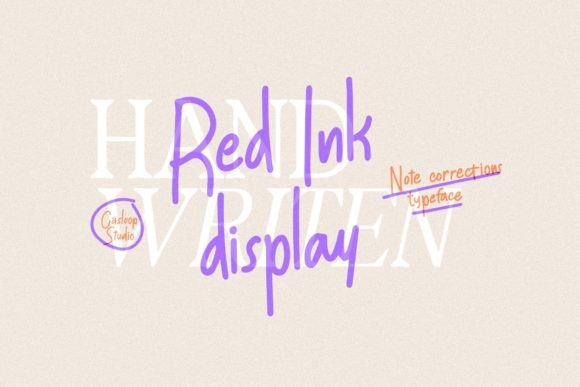
In the vast world of typography, Red-Ink font stands as a playful and captivating creation, mirroring the essence of spontaneous handwritten notes crafted in the halls of learning. Its casual allure beckons you to explore its boundless potential, whether you seek to ignite creativity in your craft projects, unleash the power of words in digital designs, add a touch of charm to your presentation, or fashion captivating greetings.
Red-Ink font effortlessly unlocks the door to endless possibilities, inviting you to experiment and unleash your imagination. Its playful strokes and the subtle variations that mimic the nuances of handwritten ink evoke a sense of nostalgia and evoke memories of school days.
With Red-Ink font as your trusted companion, transform ordinary into extraordinary. Witness the magic as your craft projects come alive with its playful demeanor. Let your digital designs speak volumes with its captivating lines, adding a personal touch to your creations.
But Red-Ink font's versatility knows no bounds, extending its charm to the world of presentation, where its captivating strokes command attention and leave an unforgettable impression on your audience. Or, let it guide your hand as you craft enchanting greetings, each word infused with the allure of Red-Ink font, making every occasion truly special.
With Red-Ink font by your side, unlock a world of limitless possibilities, where creativity knows no bounds, and every expression of your imagination takes on a life of its own.